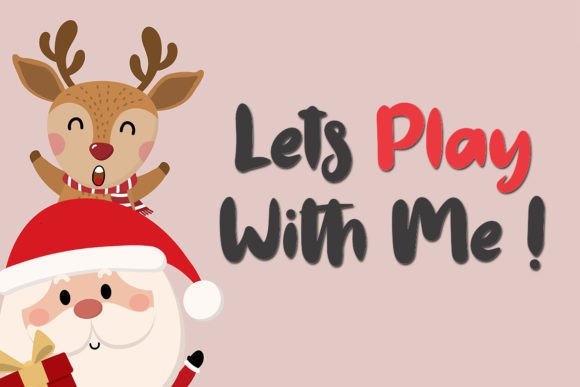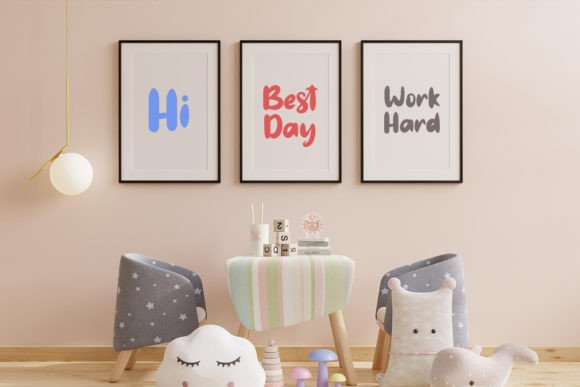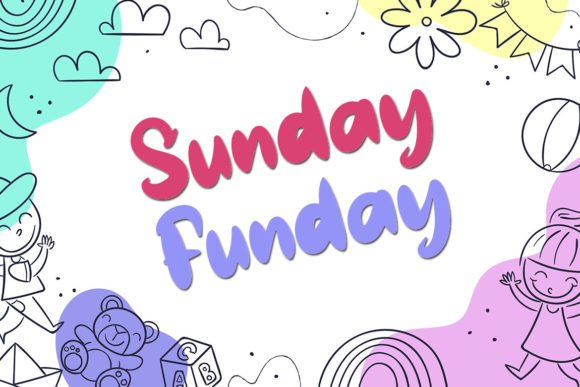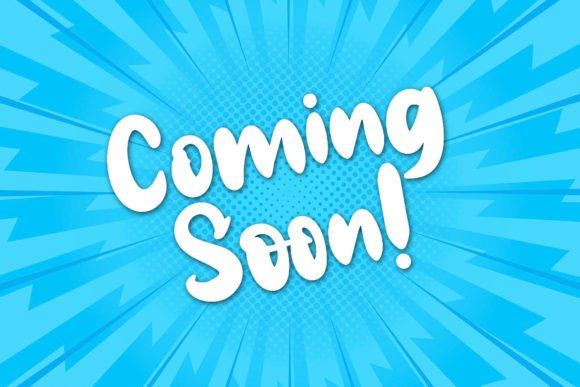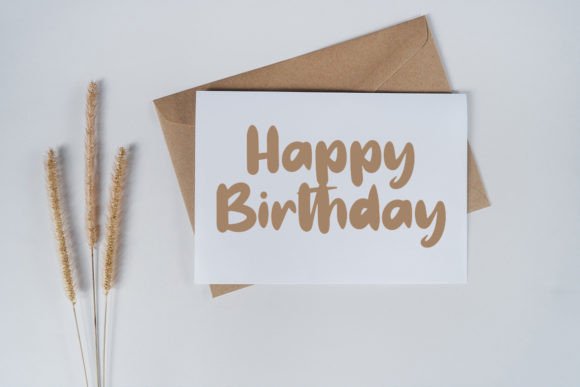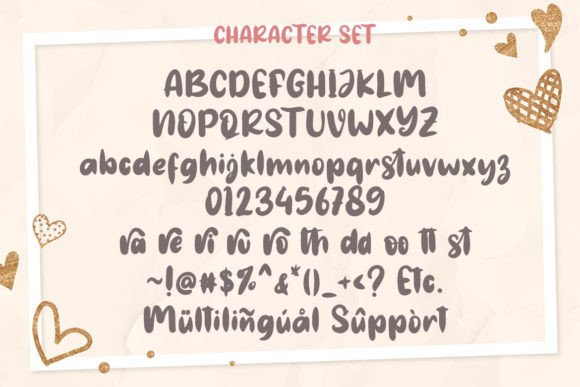
Introducing Forestha Font: The Cute and Fun Handwritten Display Font
Are you looking for a font that can add a touch of whimsy and playfulness to your designs? Look no further than Forestha Font, a cute and fun handwritten display font that’s perfect for a wide range of crafty ideas. With its original look and versatility, Forestha Font is sure to appeal to designers and crafters alike.
What Makes Forestha Font Special?
Forestha Font is a unique and eye-catching font that’s designed to make your designs stand out. Its handwritten look gives it a personal and friendly feel, making it perfect for use in a variety of projects, from letterheads and titles to stationery and logos. The font’s strong and playful personality makes it ideal for designs that need a bold touch, such as posters, packaging, movie titles, YouTube banners, and clothing.
Key Features of Forestha Font
So, what makes Forestha Font so special? Here are just a few of its key features:
- Cute and Fun Handwritten Look: Forestha Font has a playful and whimsical look that’s sure to capture the attention of your audience.
- Versatile and Flexible: This font can be used in a wide range of projects, from digital designs to print materials.
- Strong and Playful Personality: This font has a bold and confident personality that’s perfect for designs that need a strong touch.
Uses for Forestha Font
So, what can you use Forestha Font for? The possibilities are endless! Here are just a few ideas to get you started:
- Logos and Branding: Use Forestha Font to create a unique and memorable logo for your business or brand.
- Posters and Flyers: Add a playful touch to your posters and flyers with Forestha Font.
- Stationery and Letterheads: Use Forestha Font to create personalized stationery and letterheads that make a lasting impression.
- Packaging and Product Design: Add a touch of whimsy to your packaging and product designs with Forestha Font.
- Movie Titles and YouTube Banners: Use Forestha Font to create eye-catching movie titles and YouTube banners that grab attention.
- Clothing and Apparel: Use Forestha Font to create unique and stylish designs for clothing and apparel.
Why Choose Forestha Font?
So, why should you choose Forestha Font for your next project? Here are just a few reasons:
- Unique and Original Look: Forestha Font has a one-of-a-kind look that’s sure to make your designs stand out.
- Versatility: Forestha Font can be used in a wide range of projects, from digital designs to print materials.
- High-Quality Design: Forestha Font is designed to high standards, ensuring that your designs look professional and polished.
In conclusion, Forestha Font is a cute and fun handwritten display font that’s perfect for designers and crafters who want to add a touch of whimsy and playfulness to their designs. With its original look, versatility, and ease of use, Forestha Font is sure to become a go-to font in your design arsenal. So why wait? Download Forestha Font today and start creating unique and eye-catching designs that stand out from the crowd!